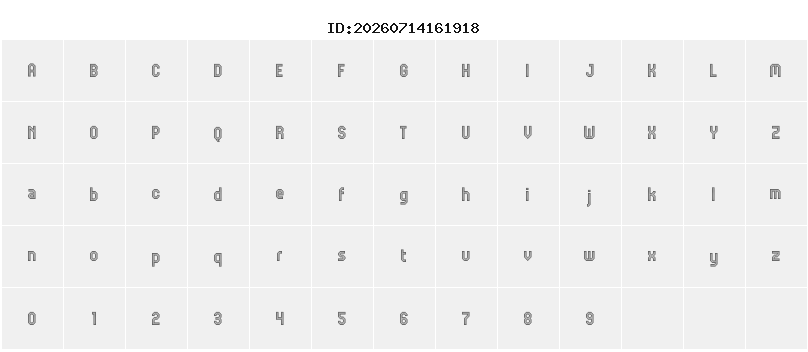
• Font Name: JD Digital
• Designer: Jecko Development
• Description: “JD Digital” was built with FontStruct
About JD Digital.ttf
JD Digital.ttf is a modern, elegant sans-serif font designed for ultimate readability and visual harmony. Perfect for branding, headlines, web design, and print materials.